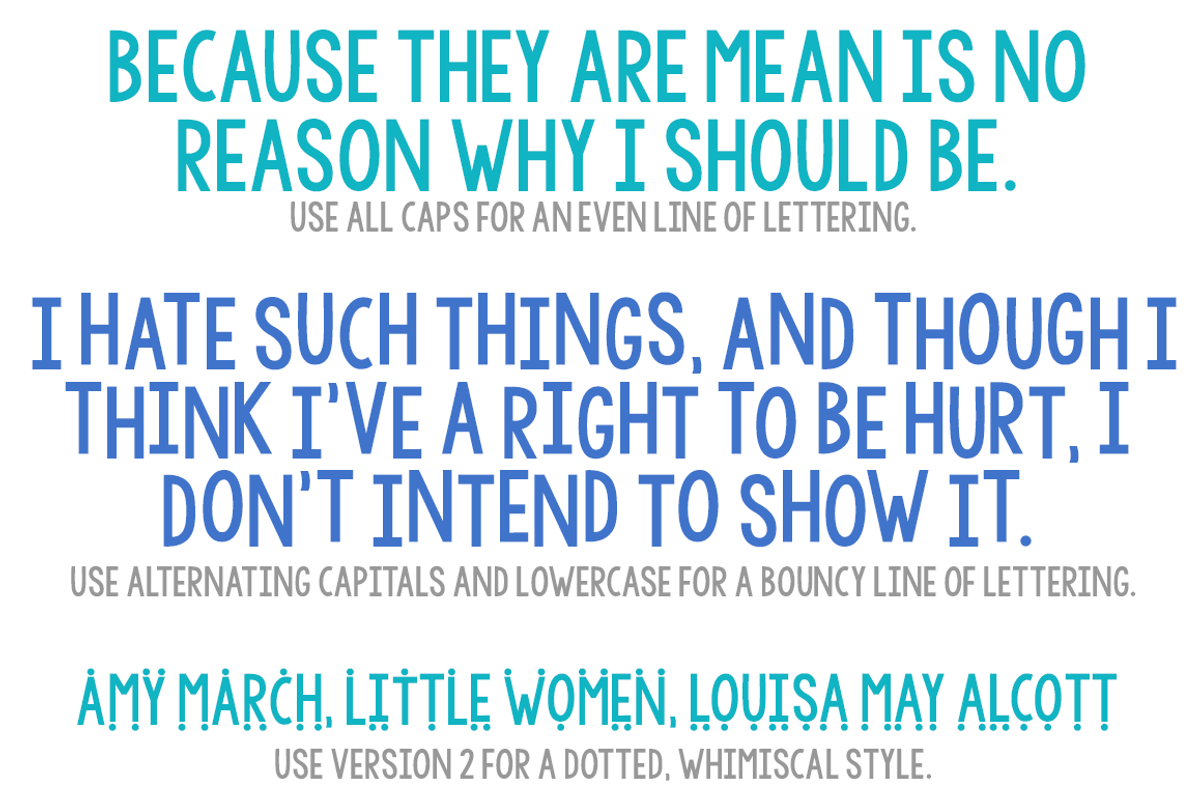
KG Why You Gotta Be So Mean Font
KG Why You Gotta Be So Mean Font by Kimberly Geswein Fonts is a font selected for branding, posters, packaging, typography.
- Includes enough glyphs to cover most European languages.
- Alternate caps and lowercase like tHiS and get bouncy lettering.
Why KG Why You Gotta Be So Mean Font is worth a look
KG Why You Gotta Be So Mean Font by Kimberly Geswein Fonts fits naturally into Branding, posters, packaging, typography.